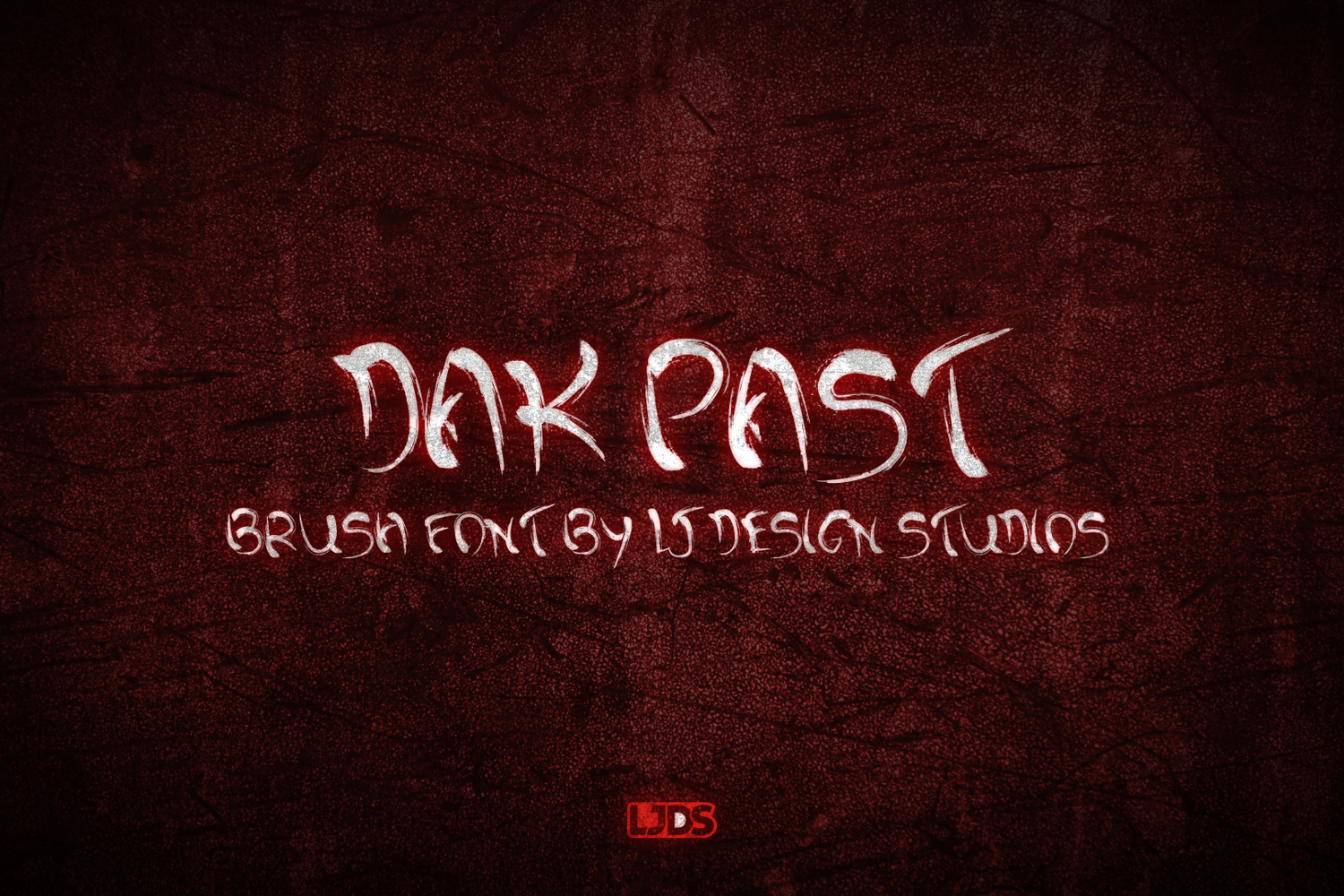
Dark Past font
The first premium typeface of LJ Design Studios.
From this source, all our dream started, to be able to contribute ideas that can be part of your projects. Dark Past is a fountain designed based on a very robust and worn brush, "What has been a sad past, but that is history." It is a multipurpose source, we are sure that it can be adapted to many of your graphic compositions.
Dark Past font